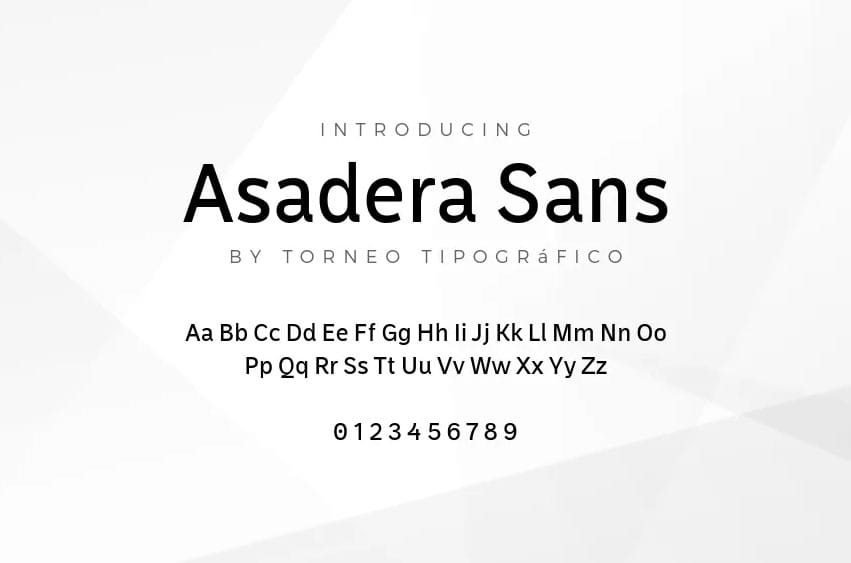
Asadera Sans Font is a neo-grotesque font that boasts a low contrast, making it an excellent choice for UI and web projects.
It’s specifically designed to suit body copy, thanks to its color, proportions, and structure. As a versatile and accessible font, Asadera Sans Font prioritizes legibility above all else. Created by Torneo Tipográfico, this Sans Serif font is sure to elevate any design project.